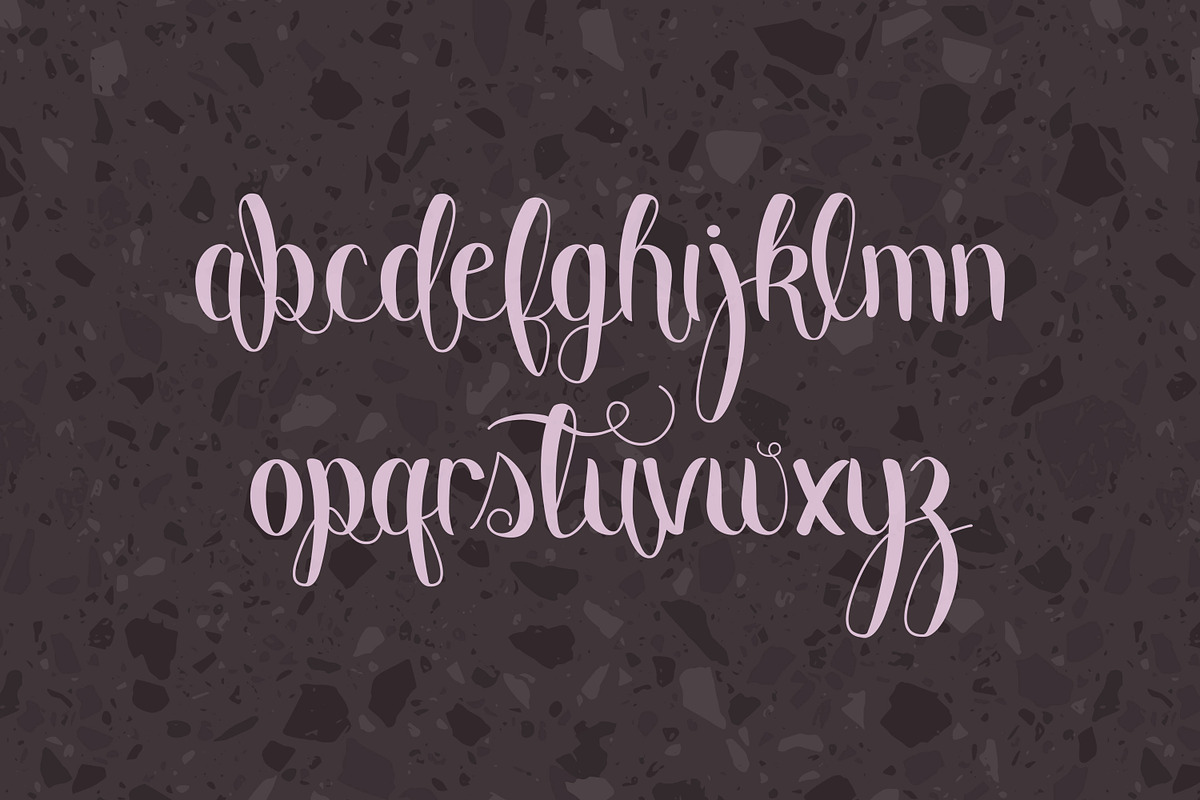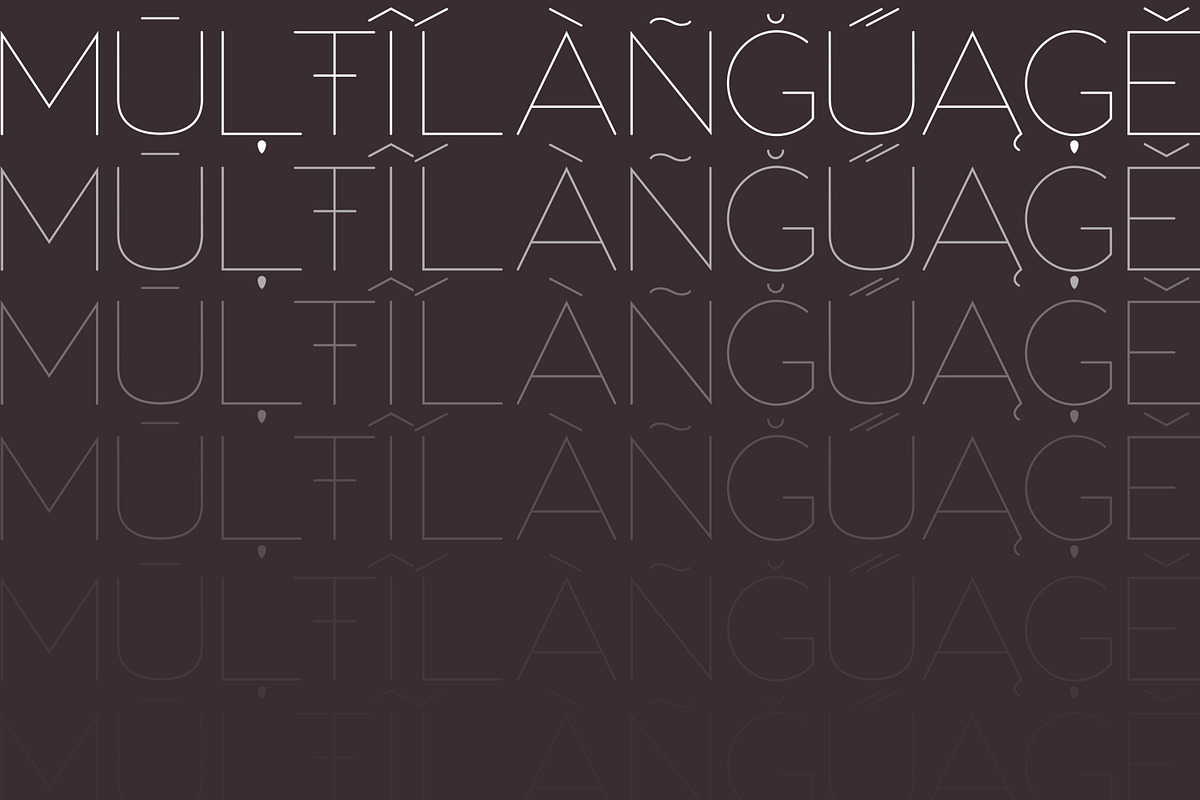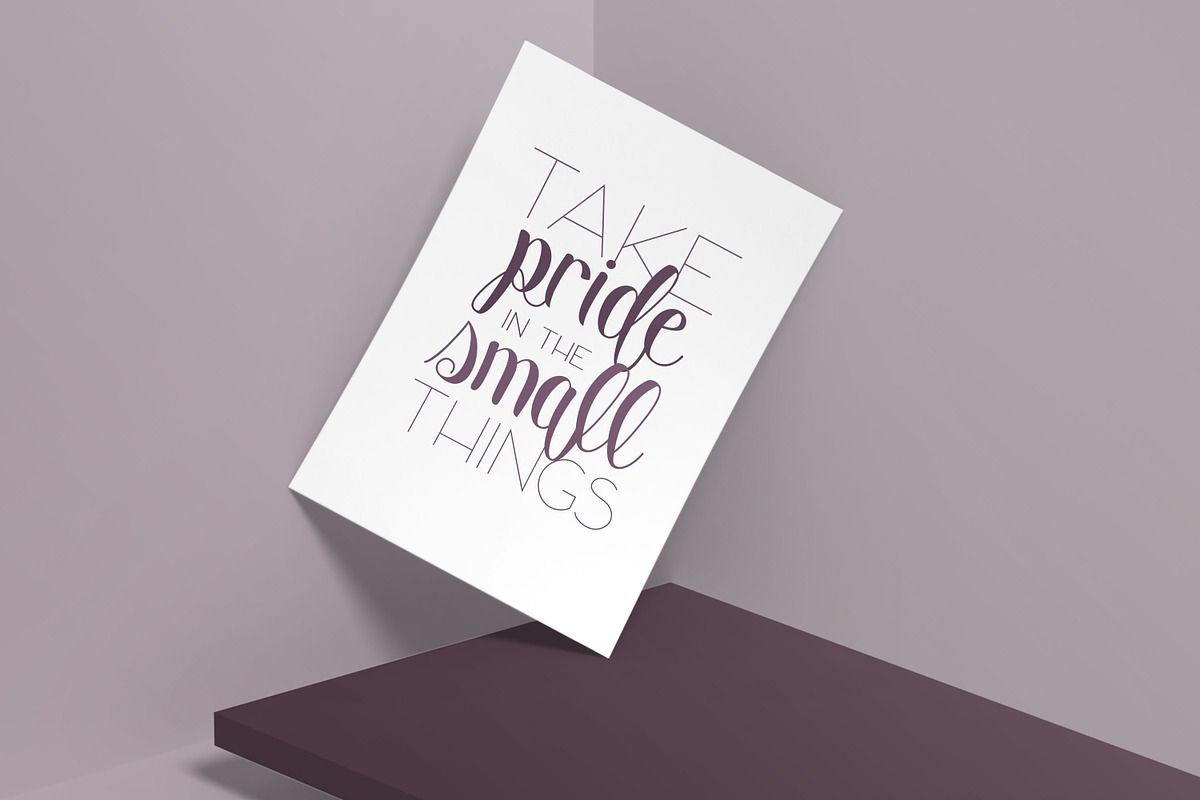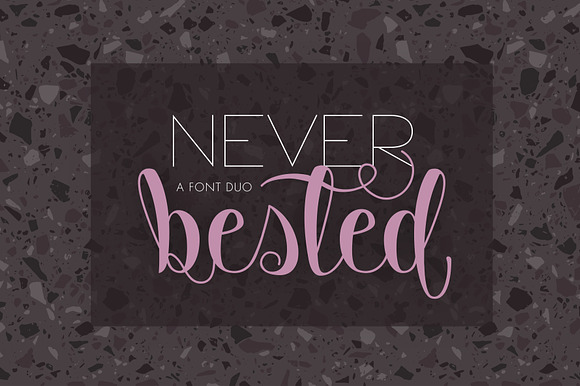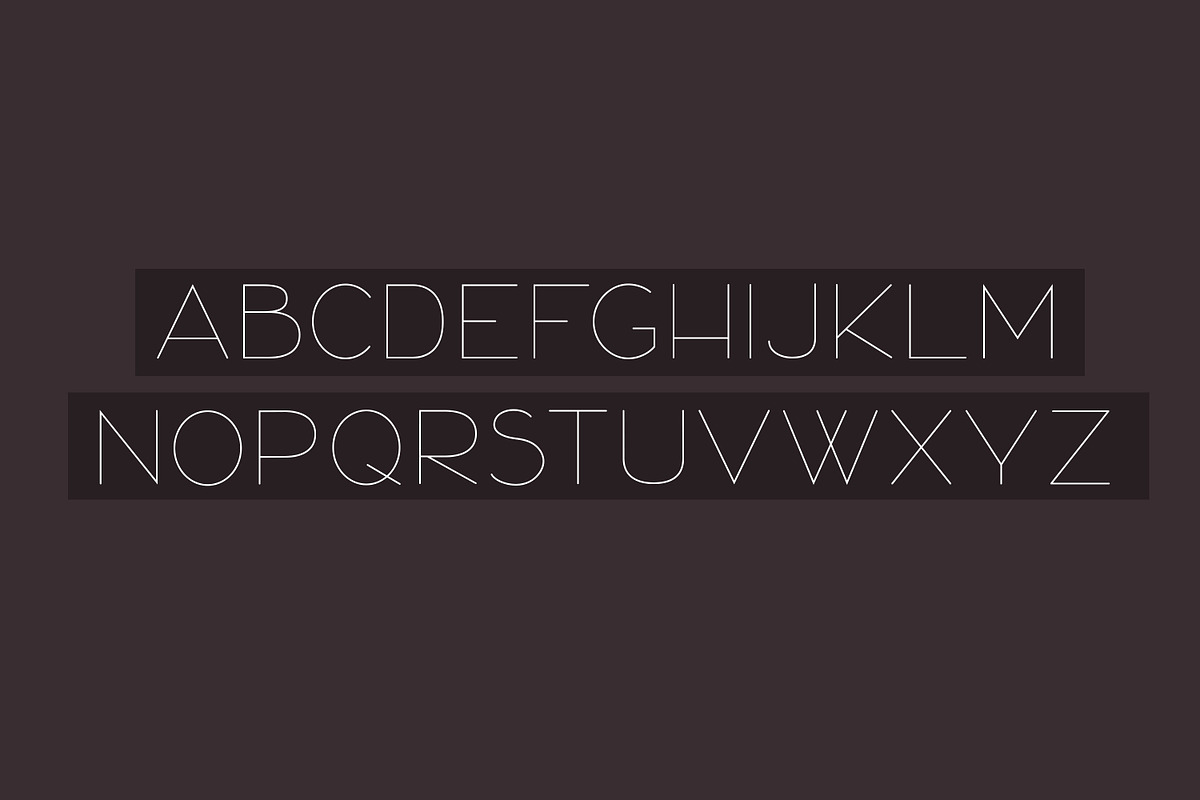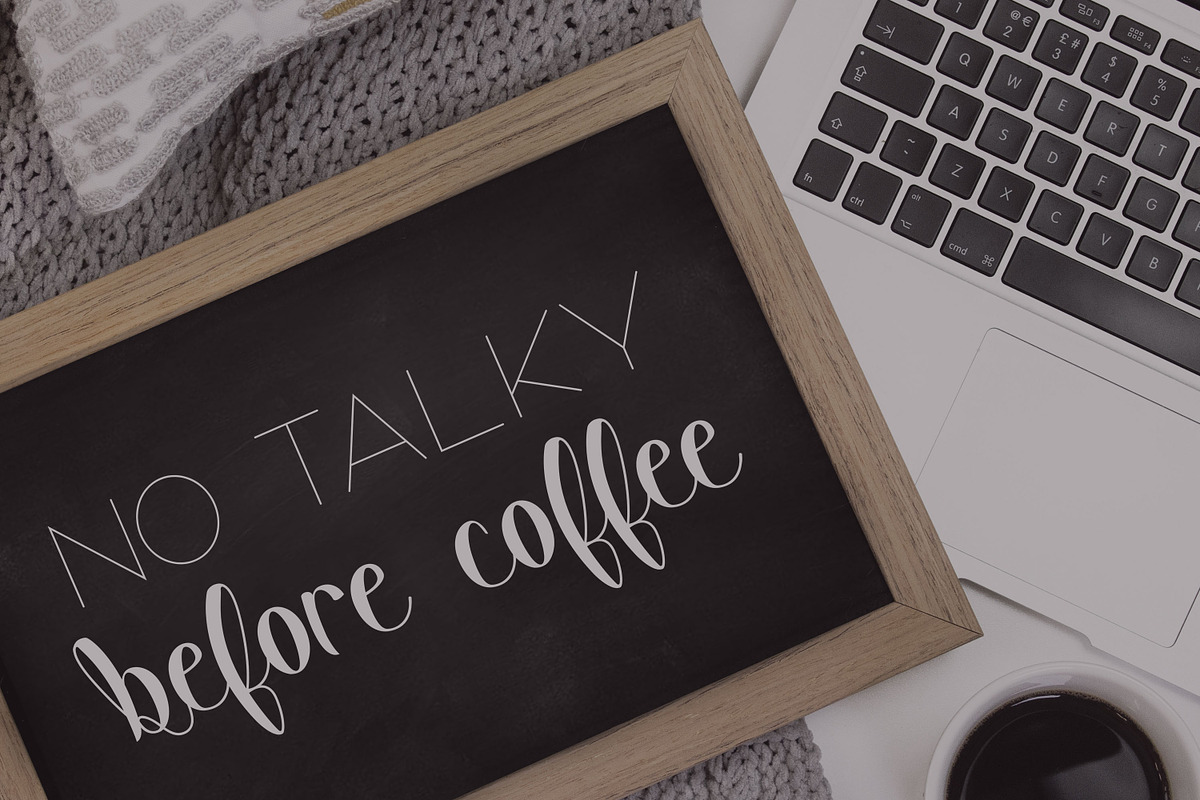
Never Bested | Font Duo
Never Bested: an elegant font duo with a feminine touch. This font duo includes an all caps simple sans, and a whimsical lowercase script.
Numerals, punctuation and multilanguage support
- This font duo includes an all caps simple sans, and a whimsical lowercase script.
Why Never Bested | Font Duo is worth a look